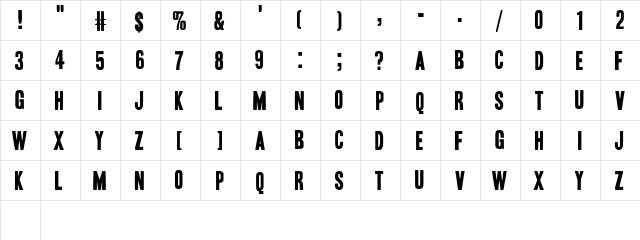
Headline One HPLHS
Design Context for Headline One Typeface
Headline One takes a measured approach to typography — its balanced proportions and neutral character make it a reliable workhorse for both digital and print work.
Pro Tip: Pair Headline One with a font of contrasting weight or personality to build a more expressive typographic hierarchy.